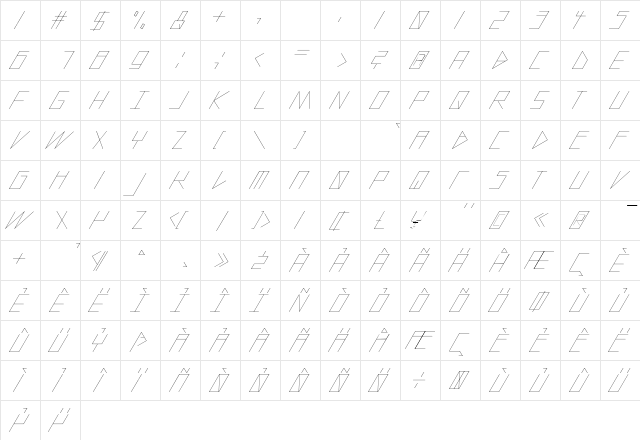
slanted ITALIC shift Thin Font Preview
| Foundry | Manuel Viergutz |
| Designer | Manuel Viergutz |
Design Context for slanted ITALIC shift Typeface
slanted ITALIC shift offers clean, dependable letterforms without strong stylistic allegiance, making it a practical choice for designers who need flexibility. Its italic angle brings a sense of urgency and motion to the letterforms. Its slender proportions lend an understated elegance to any composition.
Pro Tip: Use slanted ITALIC shift for emphasis, pull quotes, and subheadings where its slanted energy can add rhythm to the layout.